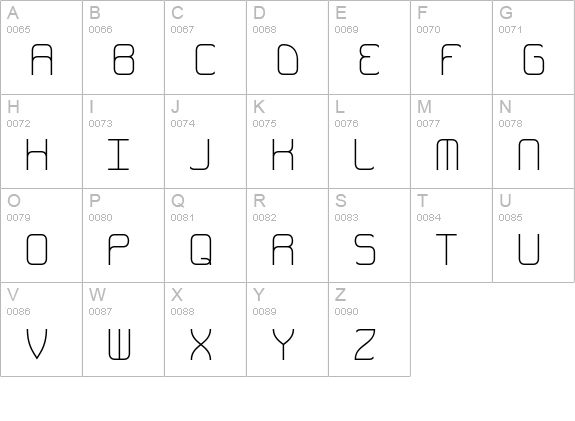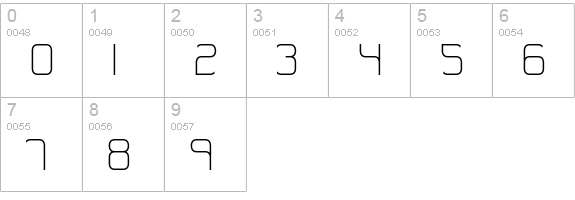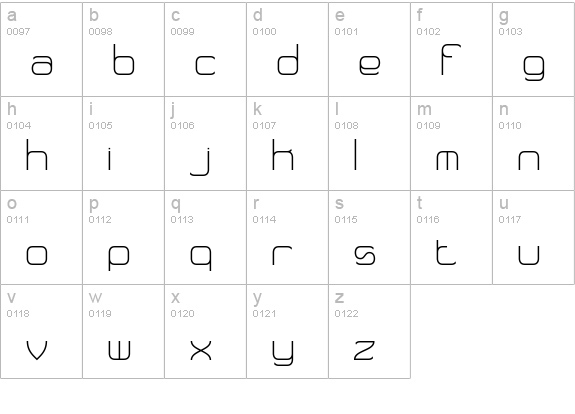
Quarterly Thin BRK Font Details
Quarterly Thin BRK is a delicate, low-contrast variant in the Quarterly typeface family \xE2\x80\x94 well suited to fashion editorial, minimal branding, and high-contrast display.
Quarterly Thin BRK font is a stunning display typeface that effortlessly combines elegance and modernity. With its sleek and slender letterforms, this font is perfect for adding a touch of sophistication to any design project. Whether you are creating a logo, poster, or website, Quarterly Thin BRK will instantly elevate your work to new heights. This font is the epitome of versatility, as it can be used in a variety of contexts and design styles. Its thin and delicate strokes add a sense of refinement, while its clean and crisp lines ensure legibility even at small sizes. Whether you're aiming for a minimalistic look or a more elaborate design, Quarterly Thin BRK is sure to deliver. One of the most remarkable aspects of this font is that it is freely available to download at FontsMarket.com. This means that you can enjoy the benefits of this exceptional typeface without any financial burden. Whether you are a professional designer or a hobbyist, Quarterly Thin BRK allows you to experiment and explore your creative potential without limitations. Download Quarterly Thin BRK font today from FontsMarket.com and experience the freedom to create extraordinary designs. With its stunning aesthetics and unmatched versatility, this font is sure to become an essential tool in your design arsenal. Elevate your projects and captivate your audience with the timeless beauty of Quarterly Thin BRK.